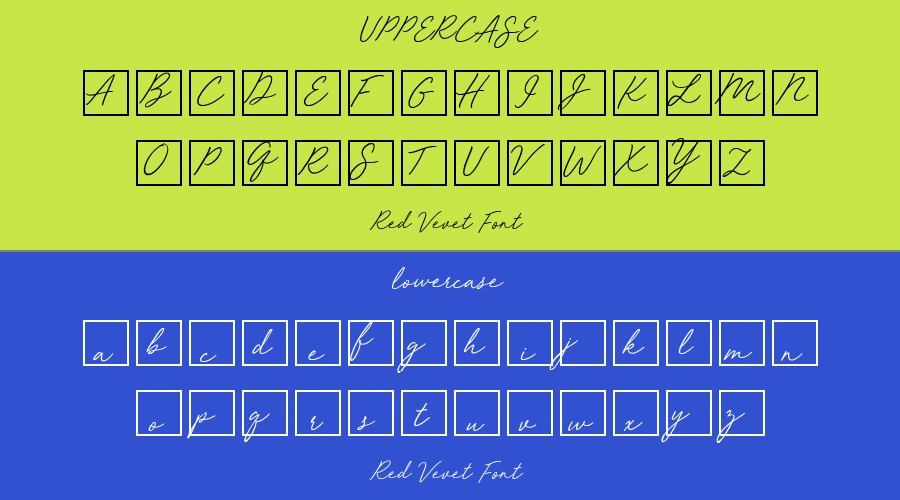
About Red Vevet Font
Designed with precision, Red Vevet Font merges flourished entries with brand presence in every character. This versatility makes it particularly effective for marketing materials, where tradition and brand alignment directly impact communication quality. Each letterform demonstrates meticulous craftsmanship.
Technical excellence shines through elements like script connections and display figures, enhancing typographic versatility. In identification tags settings, Red Vevet Font proves its worth through superior data presentation. The thoughtful execution of descender depth and market positioning ensures professional results.